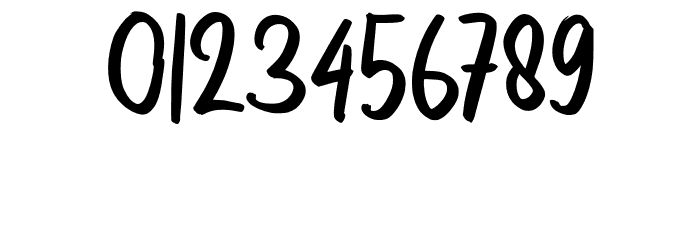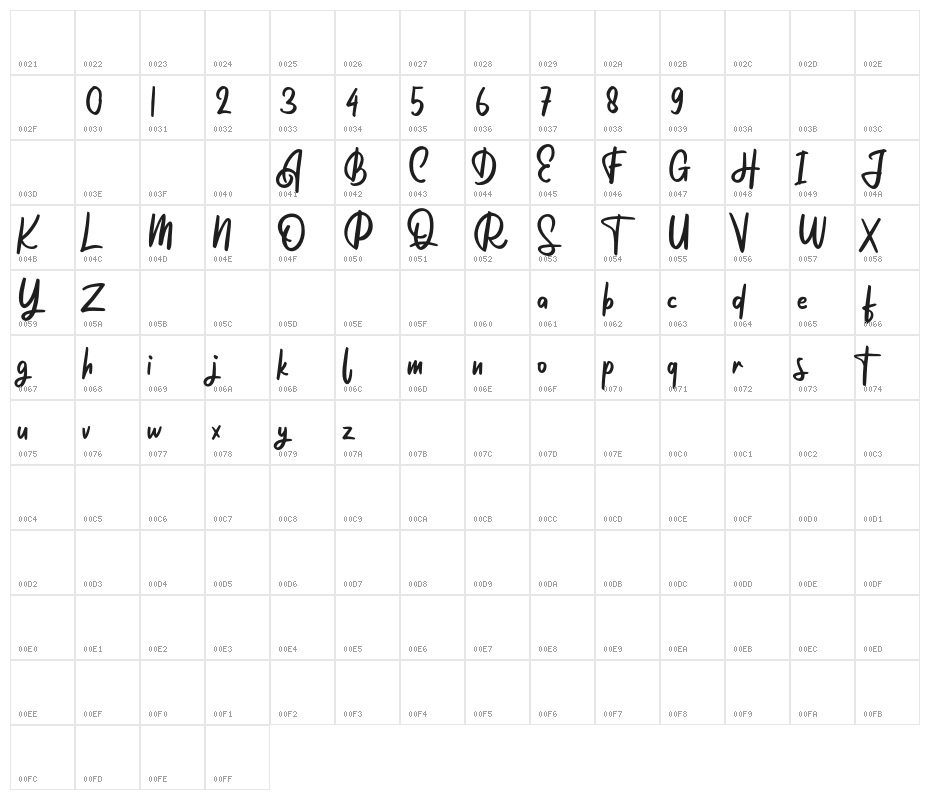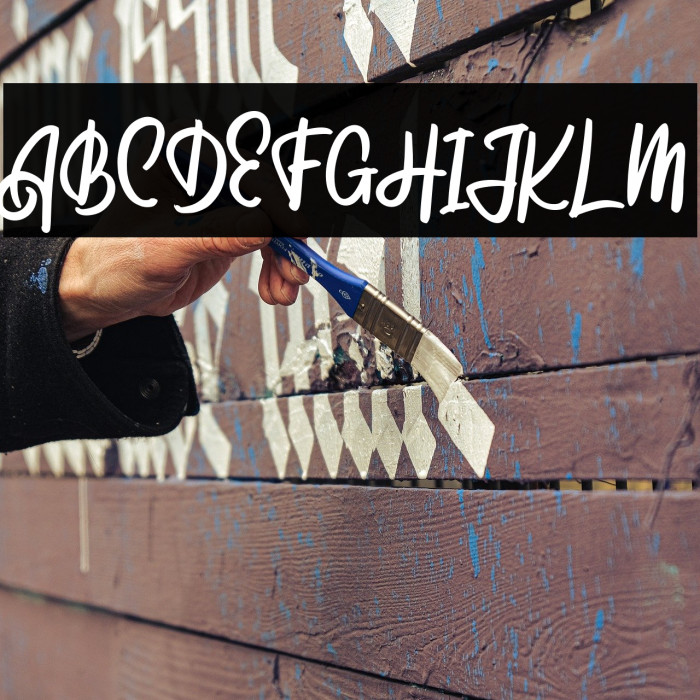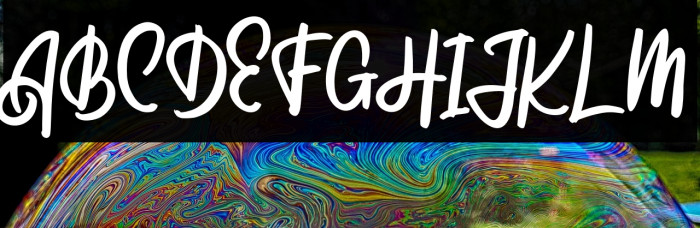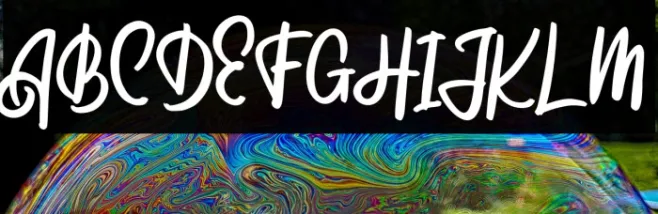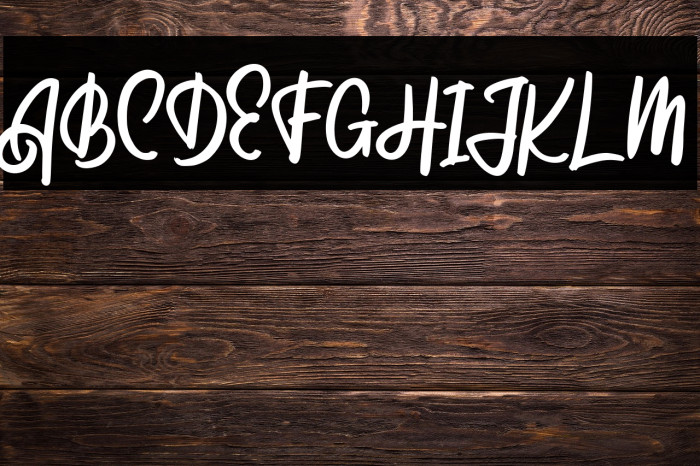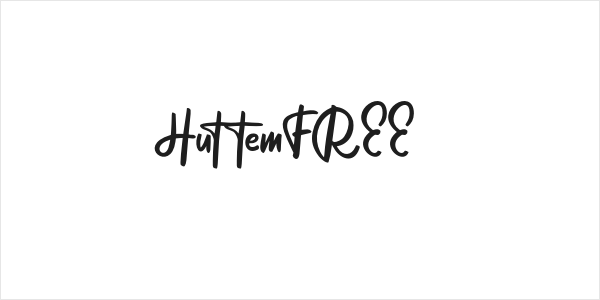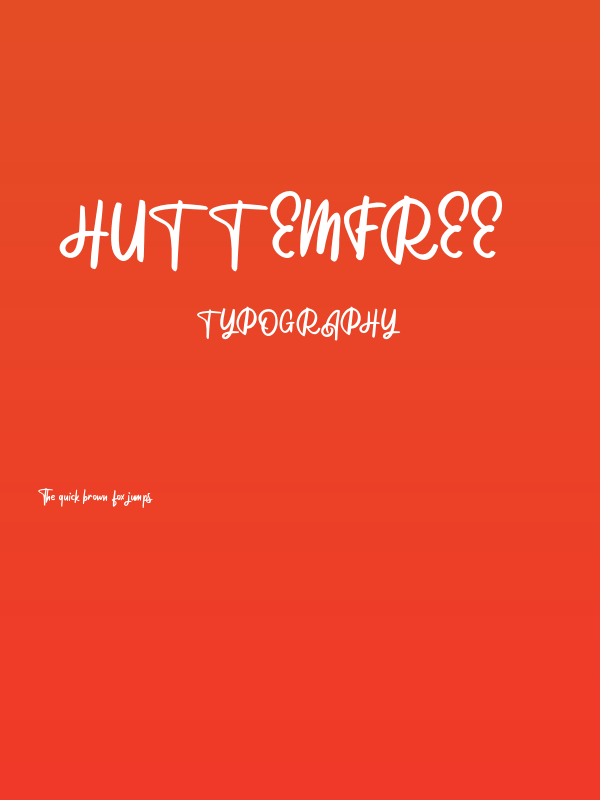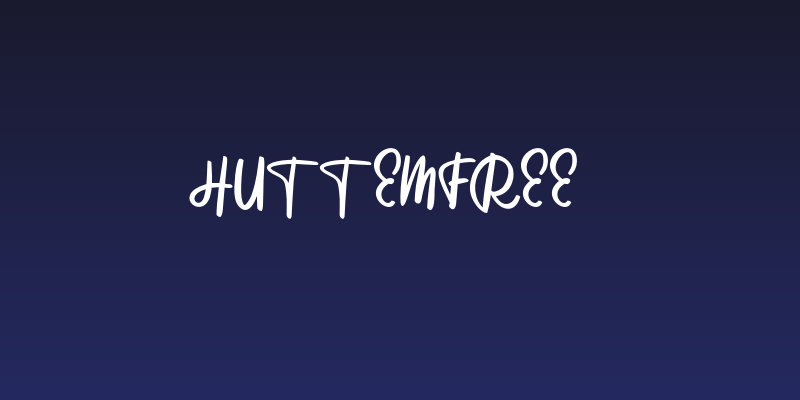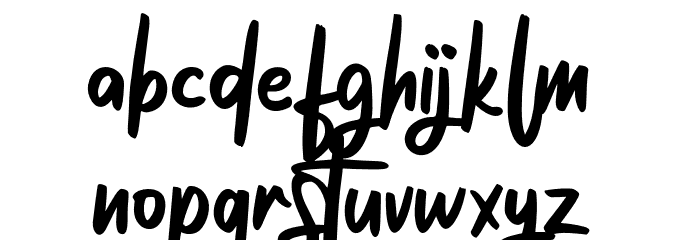
HuttemFREE Font
HuttemFREE Description
This font features a playful and dynamic handwritten style, characterized by its fluid and slightly irregular strokes. The uppercase letters exhibit a bold and confident presence, with unique flourishes that add a touch of whimsy. The lowercase letters maintain a consistent flow, enhancing readability while retaining the font's distinctive charm. Numbers are bold and clear, making them suitable for various applications. The special characters are creatively designed, complementing the overall aesthetic. This font's lively and informal nature makes it ideal for projects that require a personal and approachable feel.